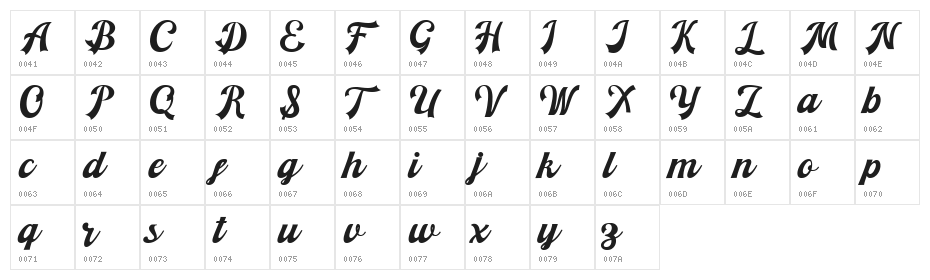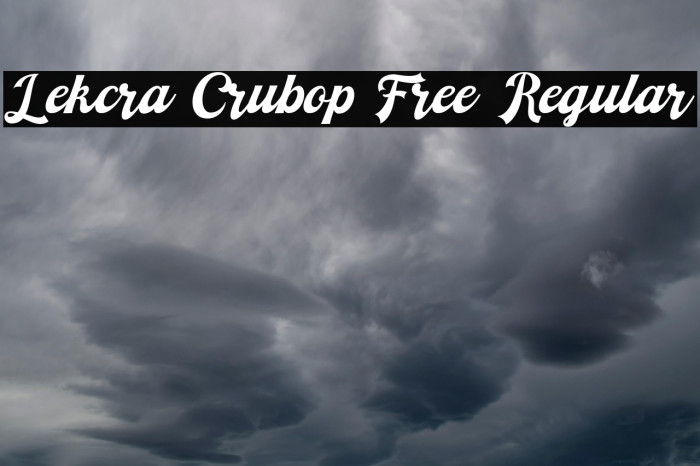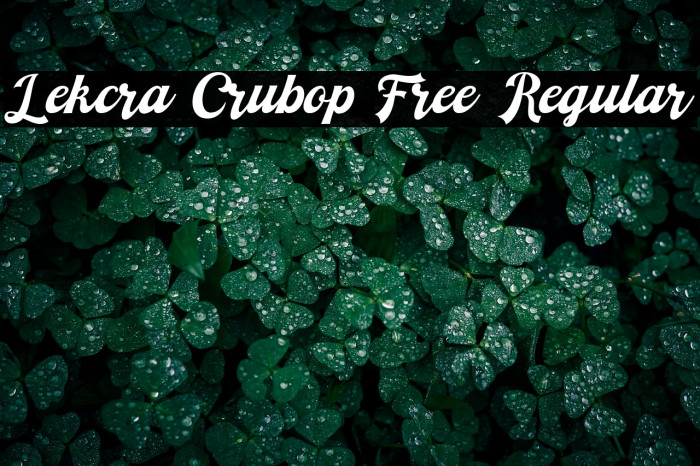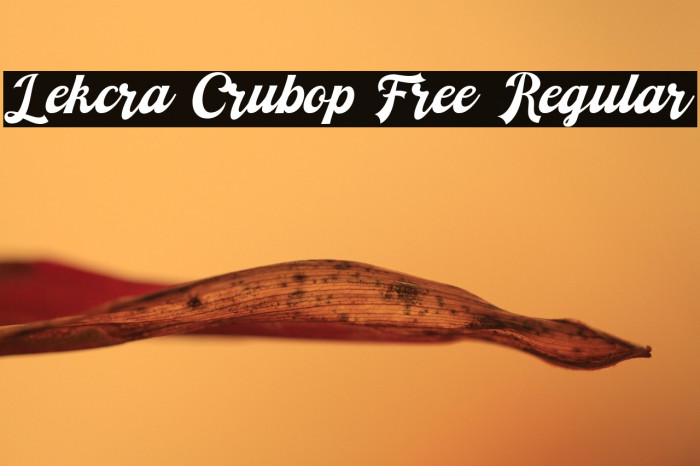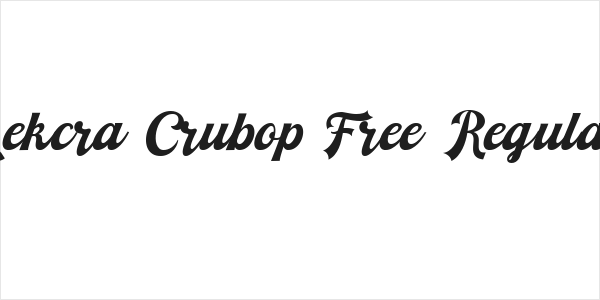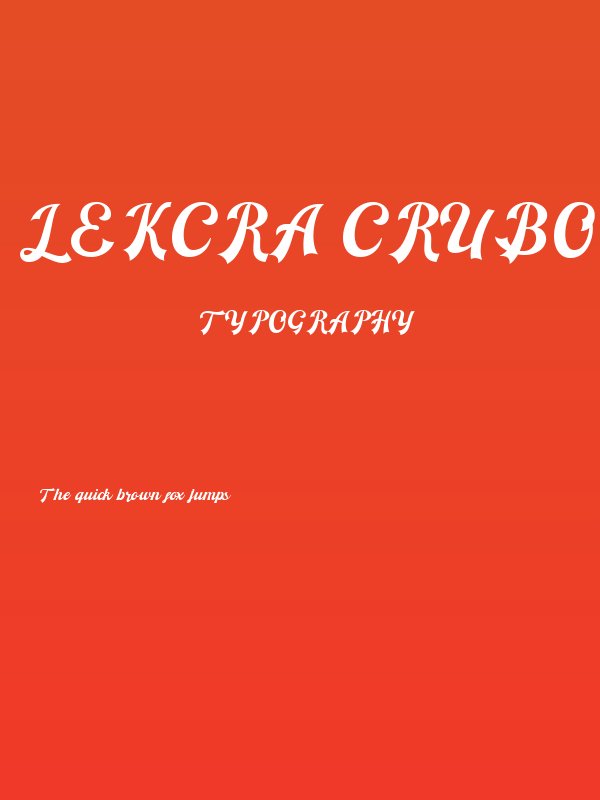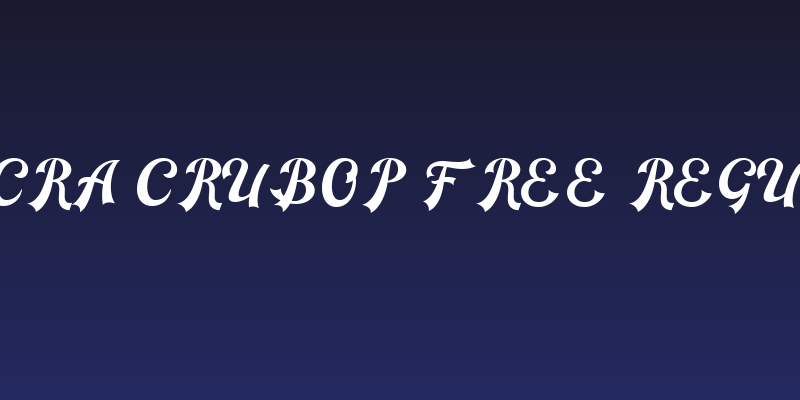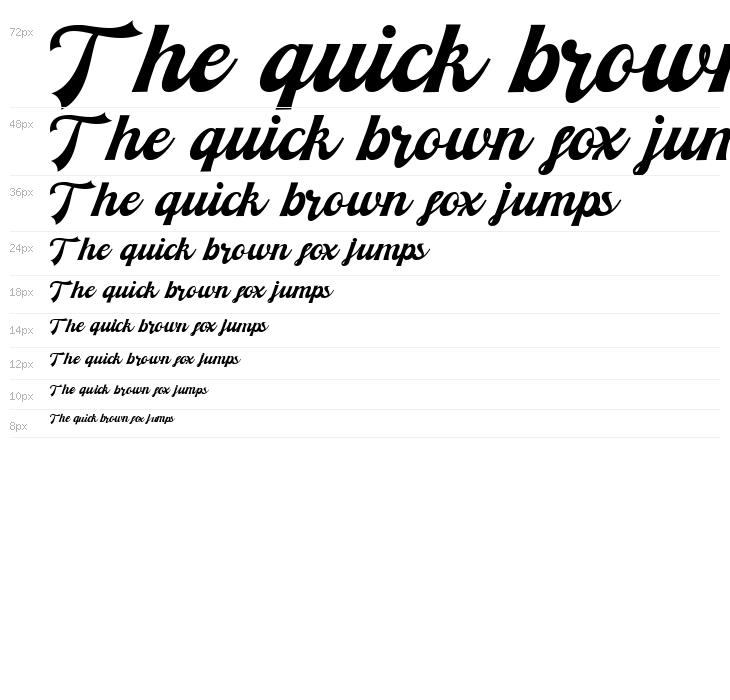
Lekcra Crubop Free Regular Font
Lekcra Crubop Free Regular Description
This font features a bold and dynamic style with a strong emphasis on curves and flourishes. The uppercase letters are characterized by sharp, pointed serifs and dramatic strokes, giving them a sense of movement and elegance. The lowercase letters maintain a consistent flow, with smooth connections between characters, enhancing readability while preserving the decorative nature. The numerals and special characters are designed to match the overall aesthetic, with similar boldness and flair. This font is ideal for projects that require a touch of sophistication and artistic flair.
| Proposed Projects | Suitable for branding, invitations, posters, and artistic projects requiring a decorative touch. |